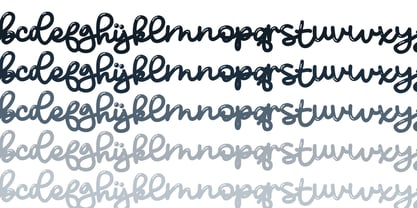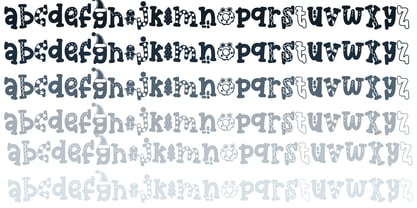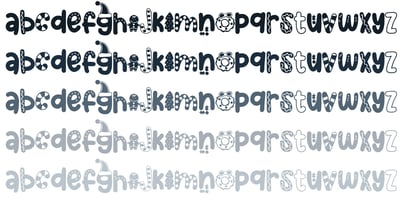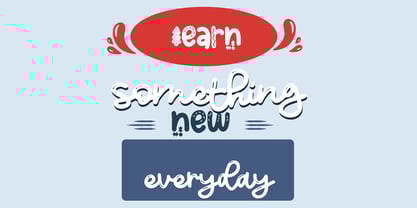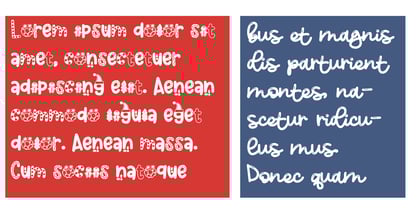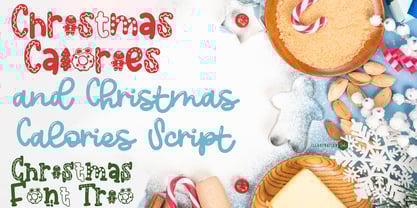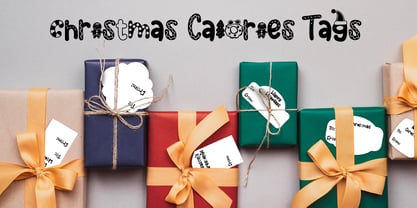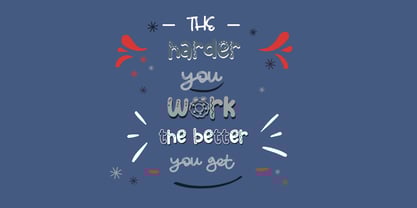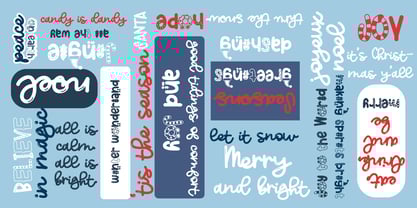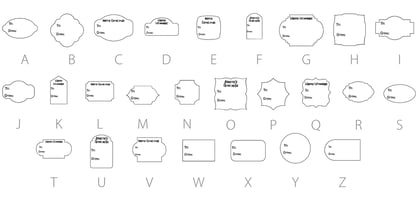
PN Christmas Calories
The PN Christmas Calories Font Family was designed by Illustration Ink and published by Illustration Ink. PN Christmas Calories contains 7 styles and family package options. More about this family
This hand-crafted font trio is a whimsical Christmas font with letters substituted by Christmas illustrations, a perfectly coordinated script, a serif version and bonus tags. Hand-crafted fonts can be either formal or informal, and they can be used for a variety of purposes. Some of the characteristics of handwritten fonts include: The letters are not perfectly uniform in size or shape. There may be slight variations in the spacing between letters and words. The font may have a "wiggly" or "squiggly" appearance. The font may be difficult to read at small sizes. Handwritten fonts can be a great way to add a casual touch to your designs. They can also be used to create a sense of nostalgia or whimsy. However, it is important to choose a handwritten font that is appropriate for the project you are working on. A formal handwritten font may not be appropriate for a casual invitation, while an informal handwritten font may not be appropriate for a corporate document.
PN Christmas Calories